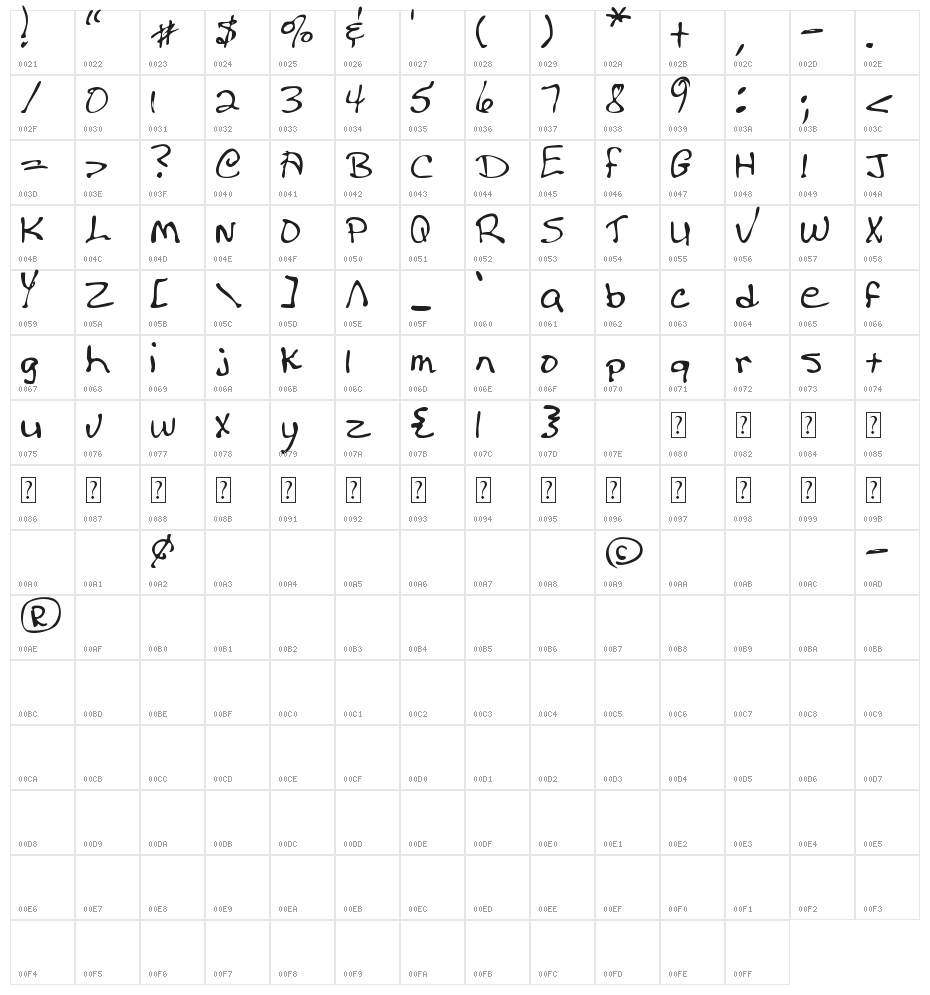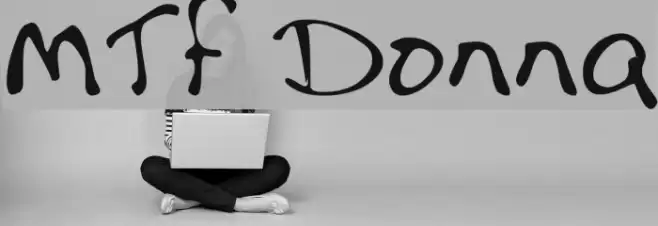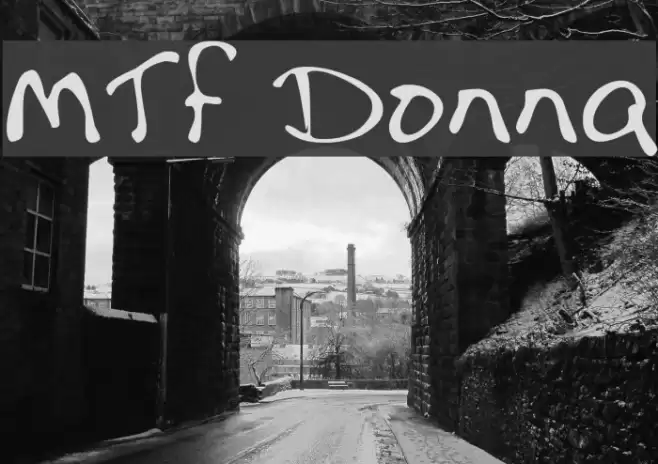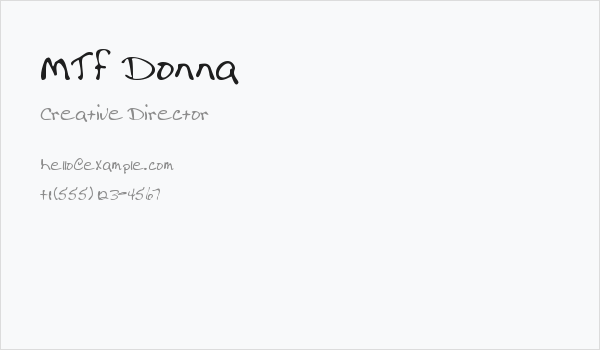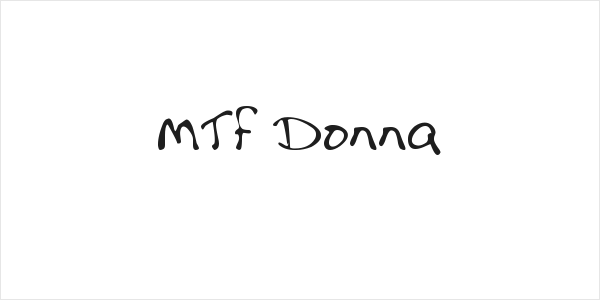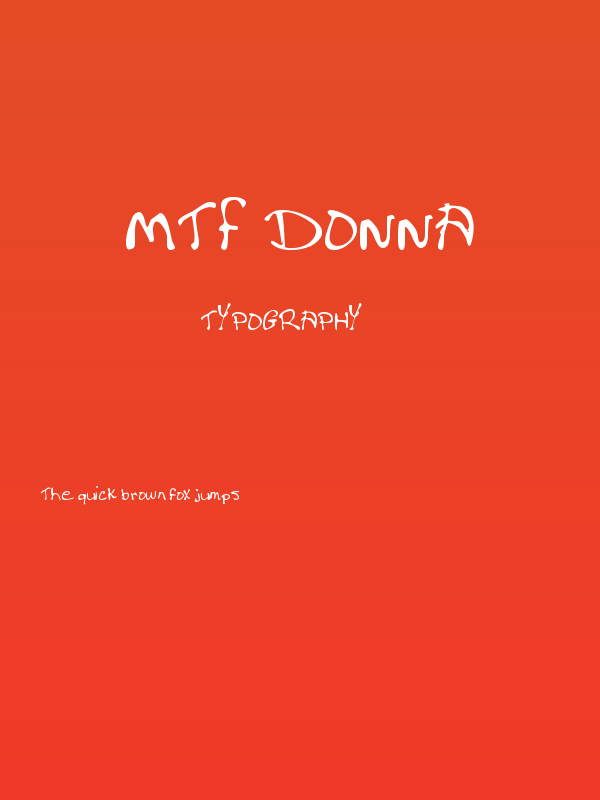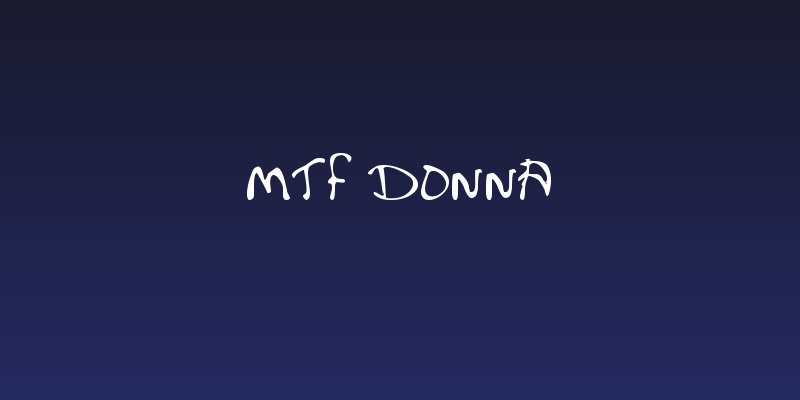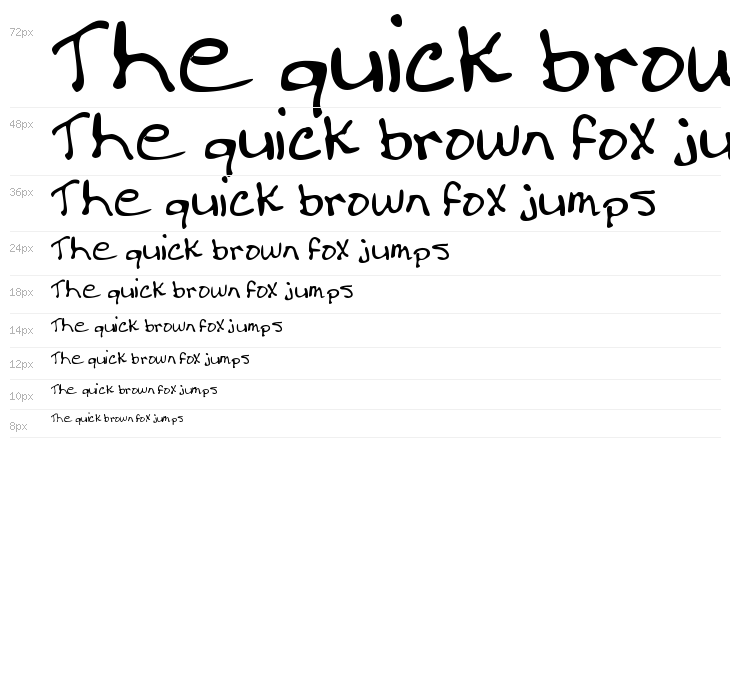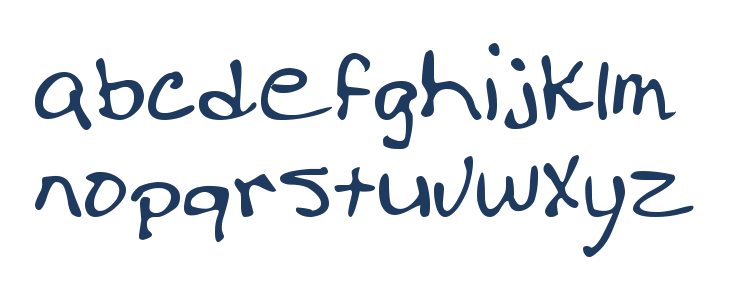
MTF Donna Font
MTF Donna Description
This font exudes a playful and casual handwritten style, characterized by its fluid and slightly irregular strokes. The letters are bold and expressive, with a natural flow that mimics the spontaneity of handwriting. The uppercase and lowercase letters maintain a consistent style, with rounded edges and a slight slant that adds to the informal feel. Numbers and special characters are crafted with the same lively touch, making them blend seamlessly with the alphabet. This font is ideal for projects that require a personal and approachable aesthetic, such as greeting cards, invitations, or playful branding.
| Proposed Projects | Ideal for greeting cards, invitations, playful branding, and personal projects. |